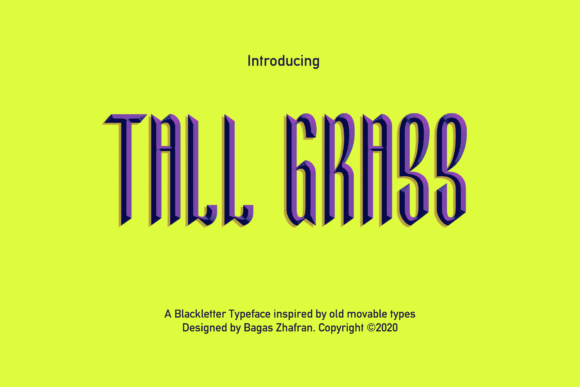
Prepare yourself to be captivated by Tall Grass, a blackletter font brimming with sophistication. A creation of Rinjanibagaz, this font is not just a collection of letters, but an artistic gateway to unleash your creativity. Tall Grass isn't just a font; it's a doorway to a world of visual enchantment, an open invitation to transform your designs into captivating works of art.
Indulge in the elegance of Tall Grass, a font that dances with grace across your screen. Its intricate strokes, reminiscent of medieval manuscripts, lend an air of timeless beauty to your projects. Each character, meticulously crafted, carries the weight of history, adding depth and intrigue to your designs.
With Tall Grass, you can effortlessly elevate your digital designs to new heights. Whether you're crafting social media posts that demand attention, designing logos that exude professionalism, or creating invitations that leave a lasting impression, Tall Grass is your ultimate companion.
Explore the boundless applications of Tall Grass. Use it to weave enchanting tales in your e-books, cast powerful spells in your presentations, or create breathtaking posters that ignite imaginations. With Tall Grass, the possibilities are as endless as your creativity.
So, embark on this artistic journey with Tall Grass, a font that will leave you spellbound. Let your imagination soar as you witness your designs metamorphose into captivating masterpieces. Embrace the power of Tall Grass and ignite the fire of creativity within you.